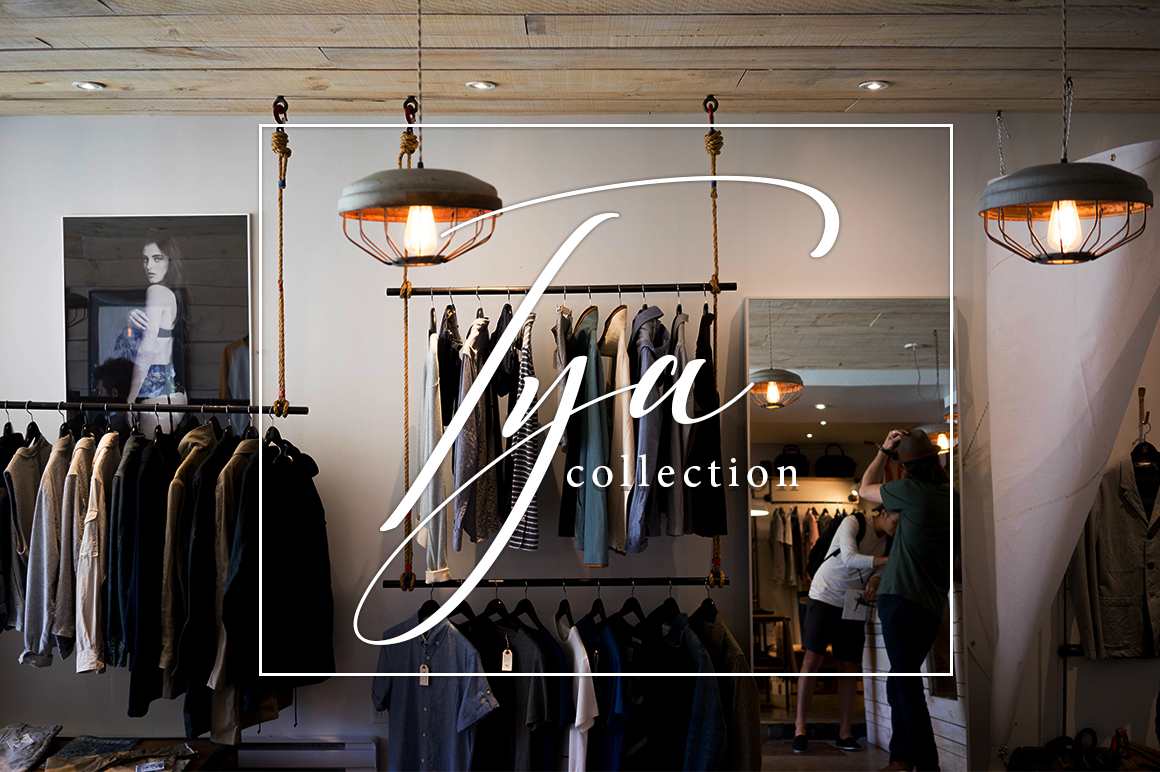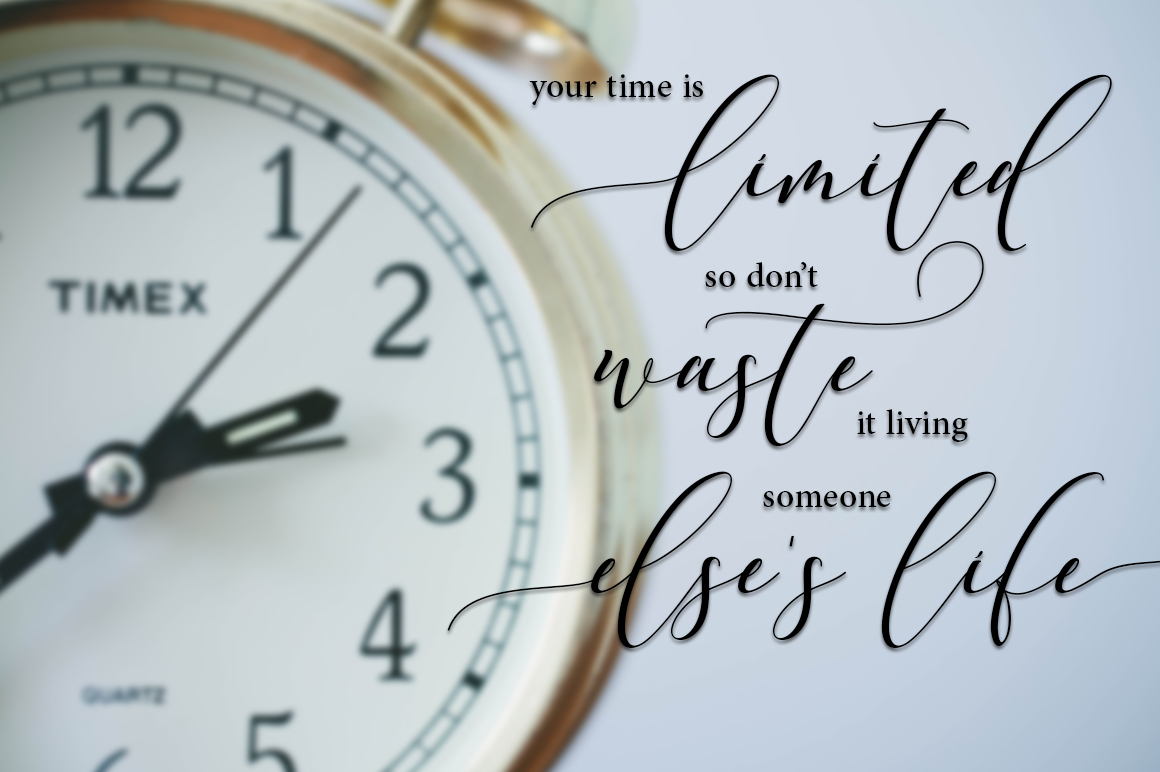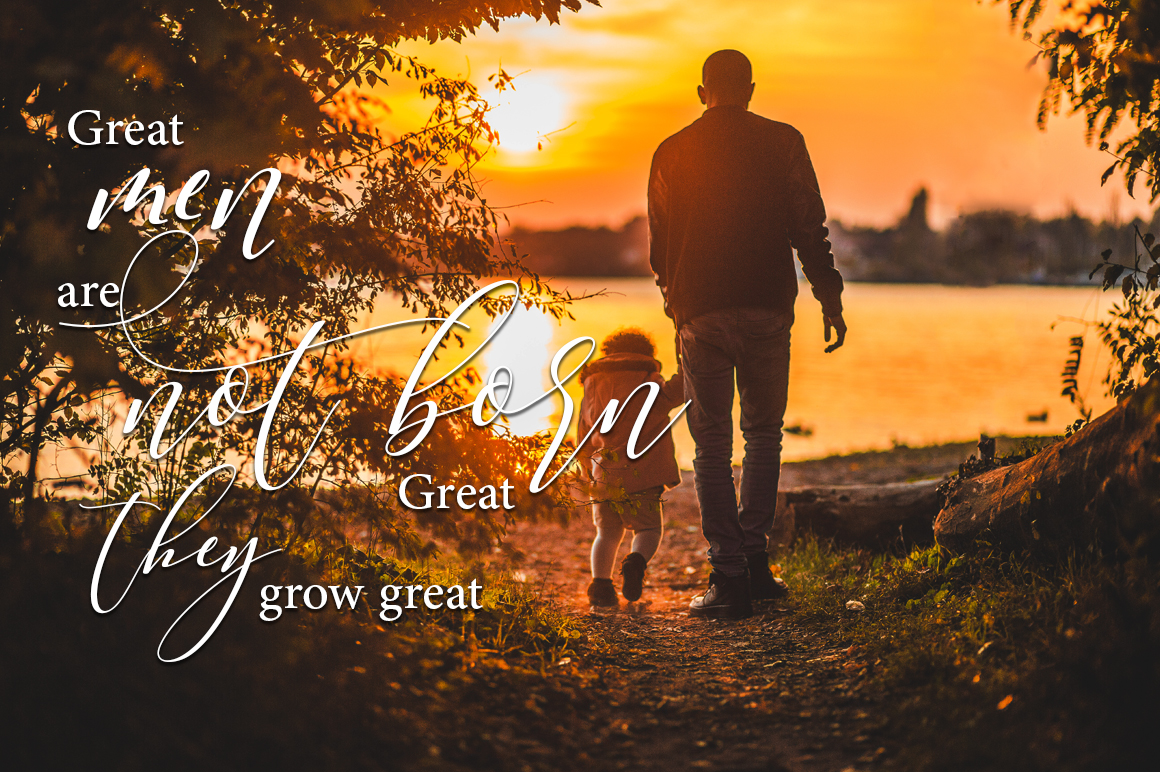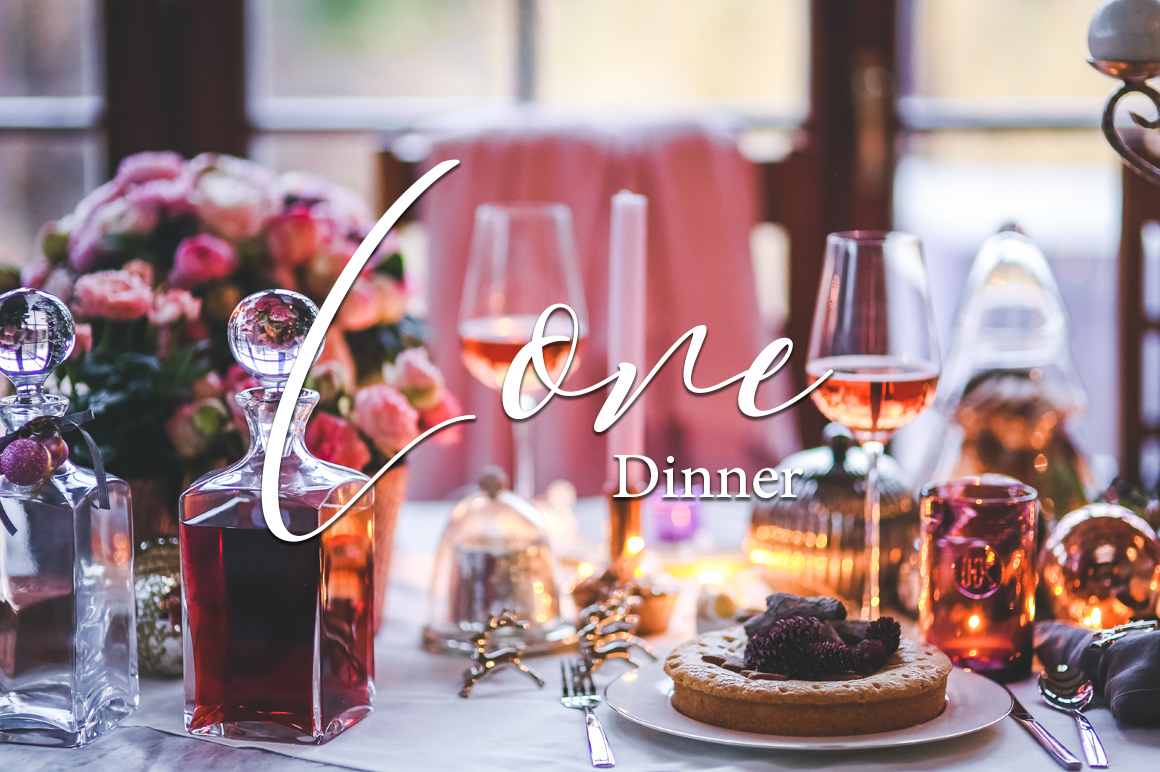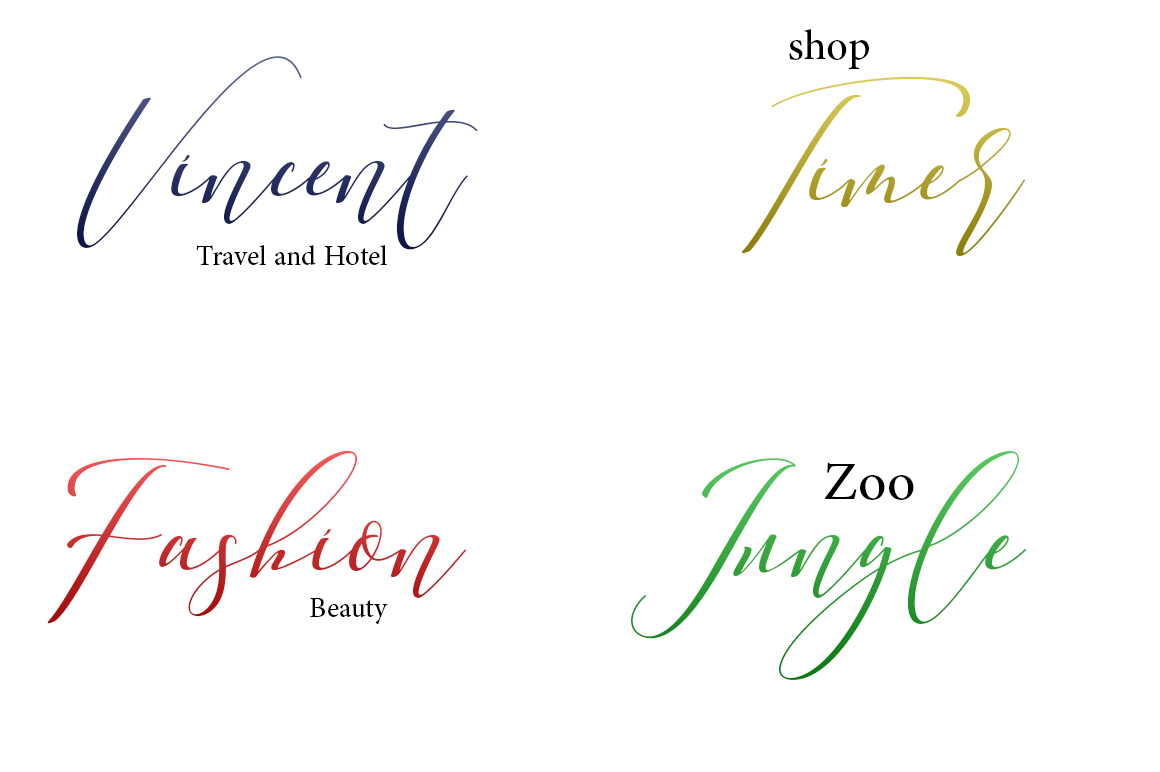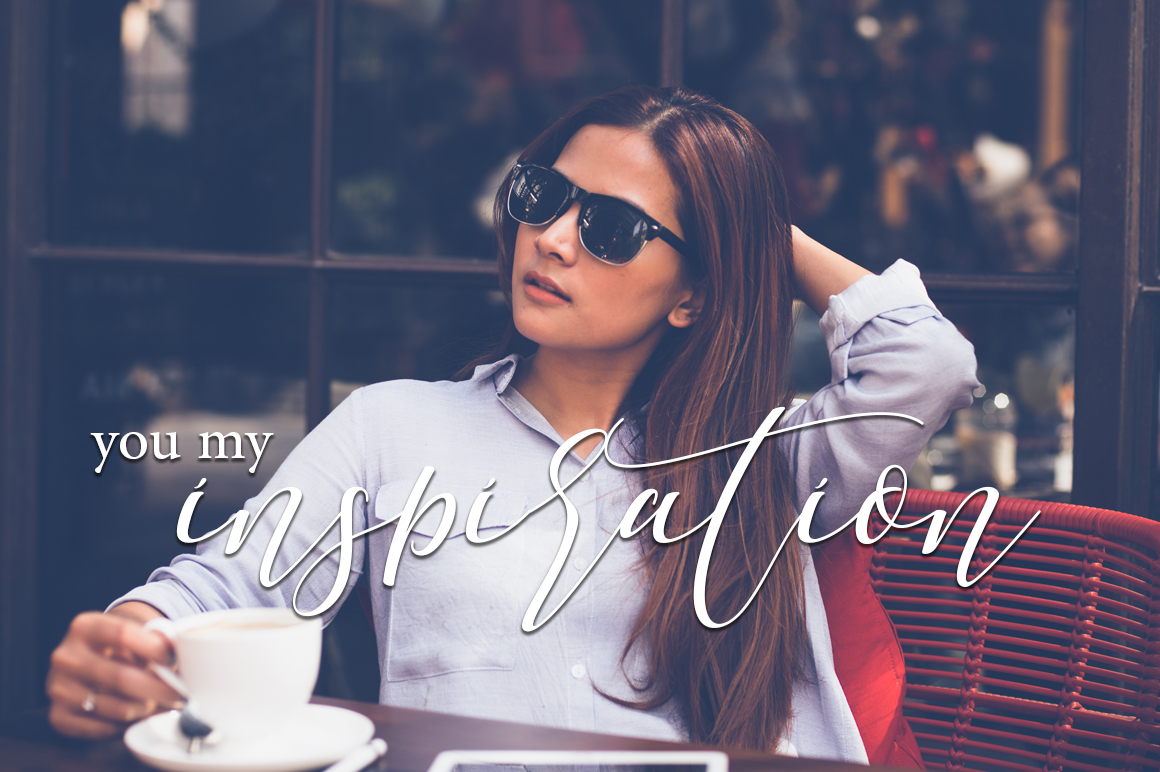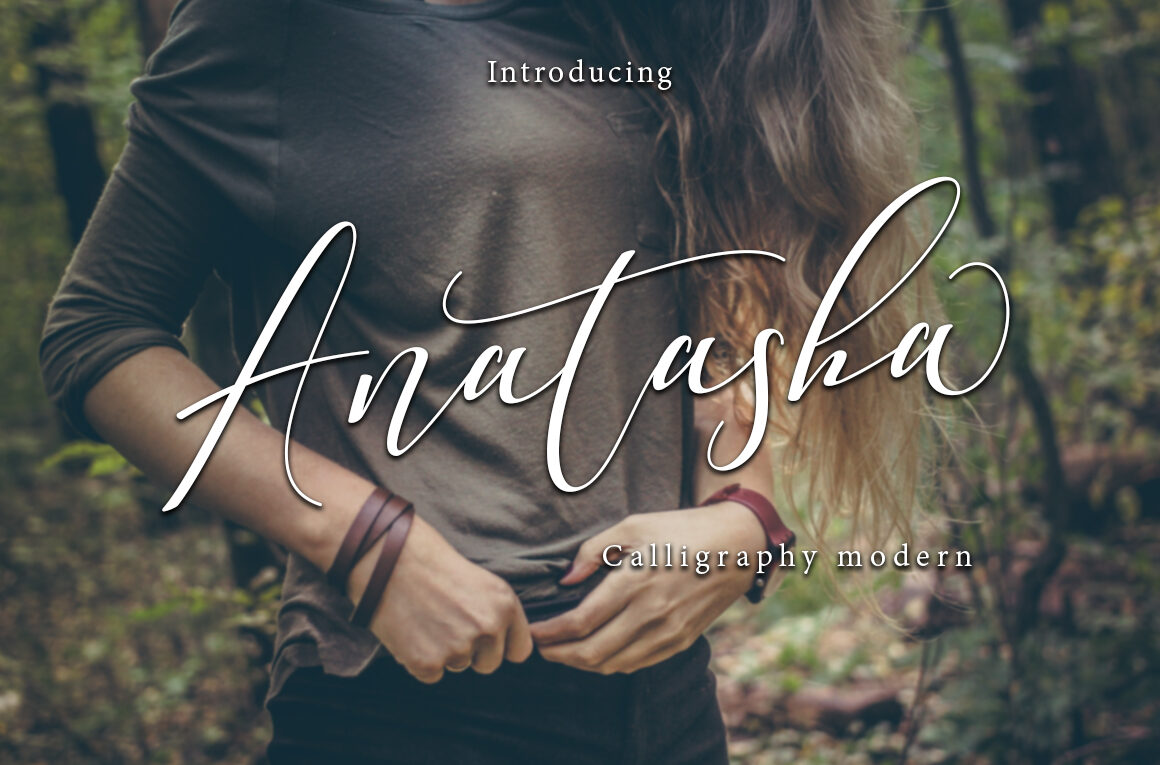
Introducing Anatasha Font: Elevate Your Designs with Ultra-Light Modern Calligraphy
In the world of digital design, fonts play a pivotal role in conveying messages, evoking emotions, and adding personality to projects. For designers, crafters, and DIY enthusiasts, finding the perfect font can be a game-changer. This is where Anatasha Font comes into play – an ultra-light, modern calligraphy font that is set to revolutionize your creative endeavors. With its 483 unique hand-drawn glyphs, Anatasha offers unparalleled versatility and elegance, making it an indispensable tool in your design arsenal.
What is Anatasha Font?
Anatasha Font is a meticulously crafted, ultra-light modern calligraphy font. Its design is characterized by graceful lines, fluid movements, and a contemporary appeal that instantly elevates any project. Whether you’re working on a greeting card, a wedding invitation, or a branding material, Anatasha brings a touch of sophistication and charm that is hard to achieve with standard fonts.
Key Features of Anatasha Font
- Ultra-Light Design: Anatasha’s ultra-light design makes it perfect for adding a subtle yet impactful touch to your designs. Its lightness ensures that your message is conveyed without overpowering the content.
- 483 Unique Hand-Drawn Glyphs: The font boasts an impressive collection of 483 unique hand-drawn glyphs. This extensive range allows for incredible flexibility, enabling you to experiment with various styles and expressions within a single font family.
- Modern Calligraphy Style: Anatasha embodies the elegance of modern calligraphy, making it ideal for projects that require a contemporary and stylish look. Its modern appeal ensures that your designs stay current and engaging.
Versatile Applications of Anatasha Font
One of the standout features of Anatasha Font is its versatility. Its applications are vast and varied, catering to the needs of different design projects. Here are some of the ways you can use Anatasha:
- Greeting Cards: Add a personal touch to your greeting cards with Anatasha’s elegant and modern calligraphy. Whether it’s a birthday, anniversary, or holiday card, Anatasha makes your messages more heartfelt and visually appealing.
- Wedding Invites & Thank You Cards: For wedding-related designs, Anatasha offers a sophisticated and romantic flair. Its ultra-light and graceful design is perfect for conveying love, joy, and gratitude.
- Branding & Business Material: Elevate your brand’s visual identity with Anatasha. Use it for logos, business cards, brochures, and other marketing materials to give your brand a modern and refined look.
- Photo Overlays: Enhance your photos with elegant text overlays using Anatasha. Whether you’re creating social media graphics, photo albums, or personalized gifts, Anatasha adds a touch of class and sophistication.
Why Choose Anatasha Font?
With so many fonts available, why should Anatasha be your go-to choice? Here are a few compelling reasons:
- Unique and Hand-Drawn: Anatasha’s hand-drawn glyphs ensure that your designs stand out from the crowd. The uniqueness of each glyph adds a personal and artistic touch to your projects.
- Highly Versatile: With 483 glyphs at your disposal, you can experiment with various styles and expressions without needing multiple fonts.
- Easy to Use: Despite its intricate design, Anatasha is easy to use, even for those who are new to design. Its compatibility with various design software makes it convenient to incorporate into your workflow.
| Author | Teweka |
Anatasha Font is more than just a font – it’s a design companion that can transform your projects with its ultra-light, modern calligraphy style. Whether you’re a professional designer or a DIY enthusiast, Anatasha offers the tools you need to create stunning, professional-grade designs. With its extensive glyph collection, versatility, and elegant design, Anatasha is poised to become your favorite font for a wide range of projects. So, why wait? Explore the creative possibilities with Anatasha Font today and take your designs to new heights!